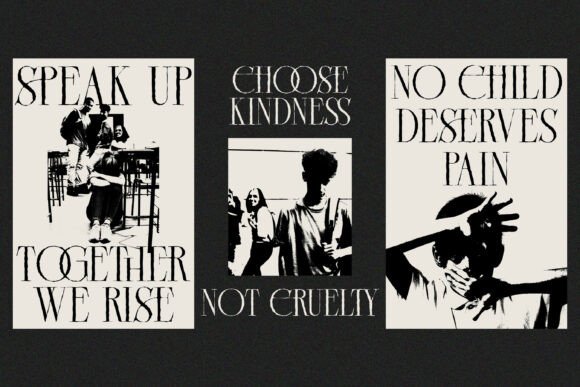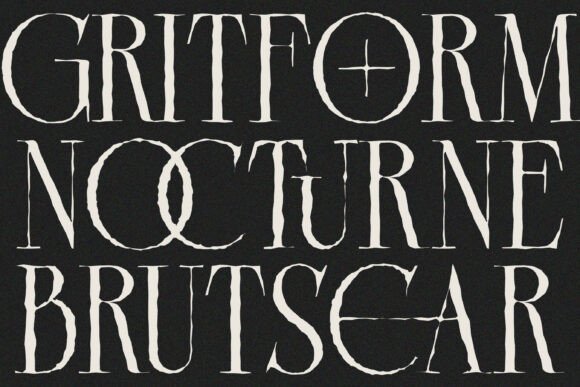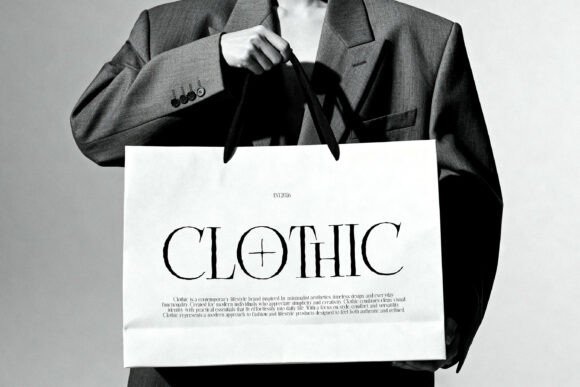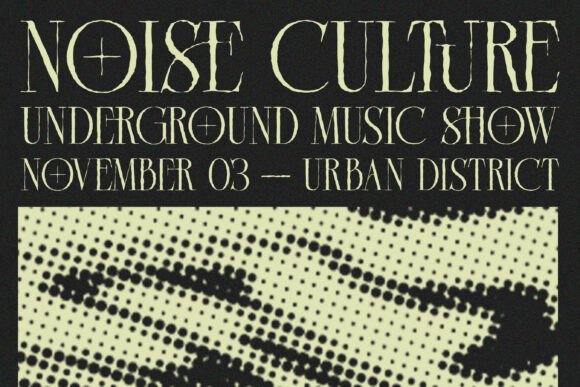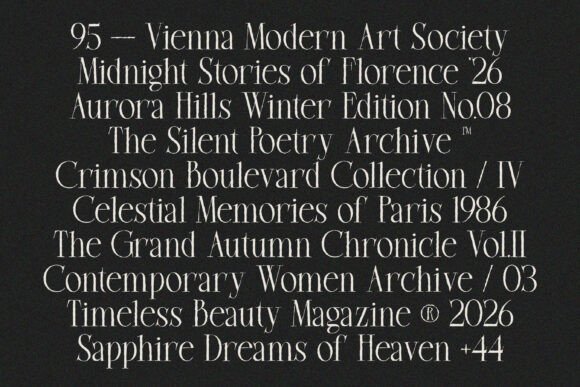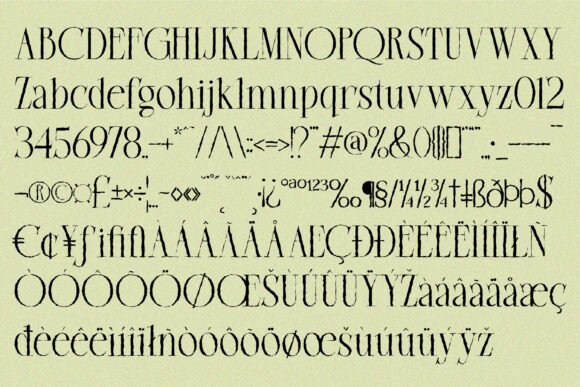
Introduction to Magora Font
Magora is a unique display serif font that blends modern elegance with raw distressed details.
Designed with sharp serif forms, artistic imperfections, and handcrafted textures, Magora delivers a bold visual presence perfect for creative branding and expressive typography This font is ideal for fashion editorials, album covers, luxury branding, posters, packaging, cinematic titles, artistic projects, and modern gothic aesthetics.
Key Features of Magora Font